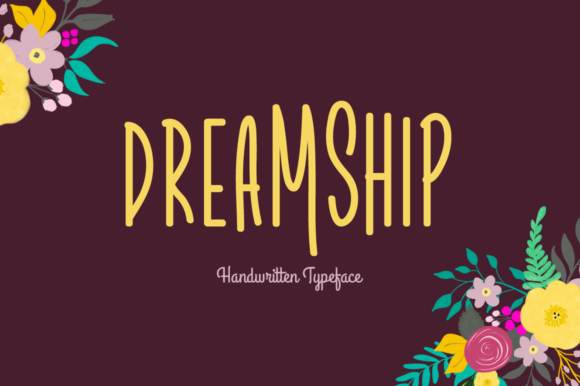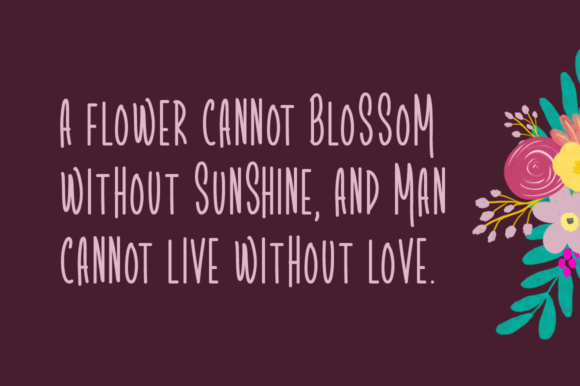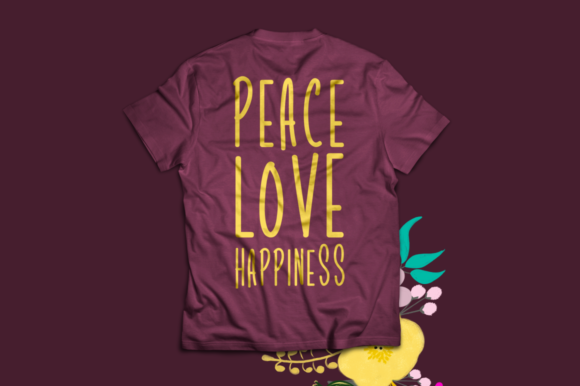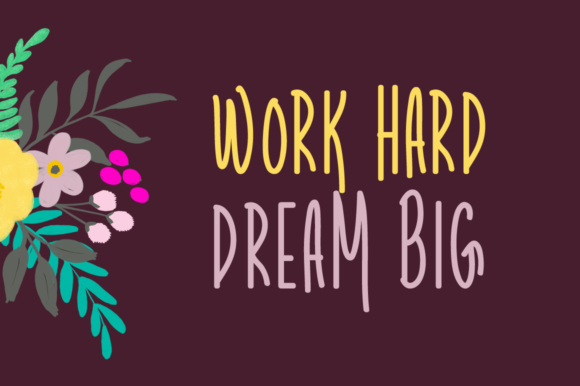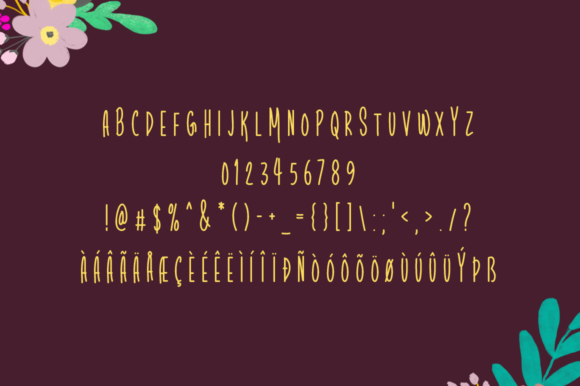
Dreamship Font
About Dreamship Font
Dreamship is a beautiful handwritten font with a modern, yet personal touch, it will surely inspire any design project that needs a romantic touch.